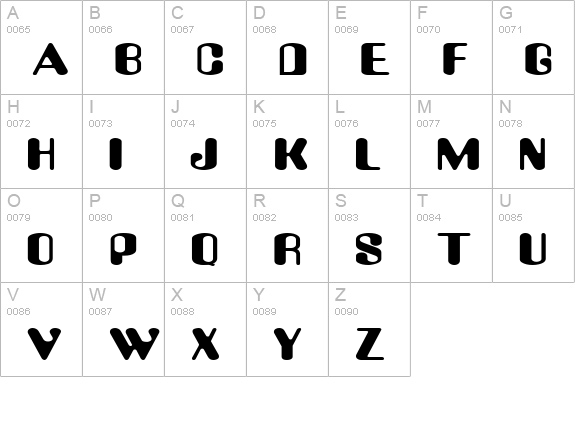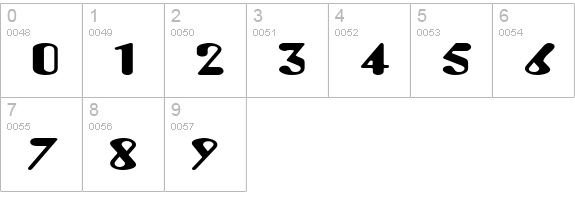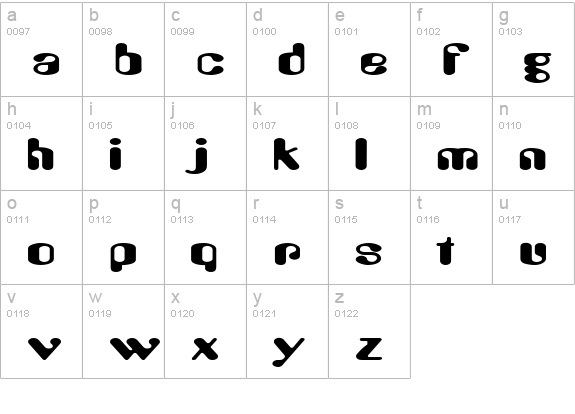
Amos Extended Bold is a strong, high-contrast, extended-width variant in the Amos typeface family \xE2\x80\x94 well suited to headlines, attention-grabbing titles, and strong calls-to-action.
Amos Extended Bold font is a striking and modern typeface that exudes confidence and sophistication. With its bold and strong design, Amos Extended Bold commands attention and makes a bold statement in any project. This versatile font is perfect for headlines, titles, posters, and other design projects that require a powerful and impactful look. What's even better is that Amos Extended Bold font is available for free download at FontsMarket.com. This means you can easily access this stylish font and use it in your projects without any cost. Don't miss out on the opportunity to enhance your designs with the bold and eye-catching Amos Extended Bold font!